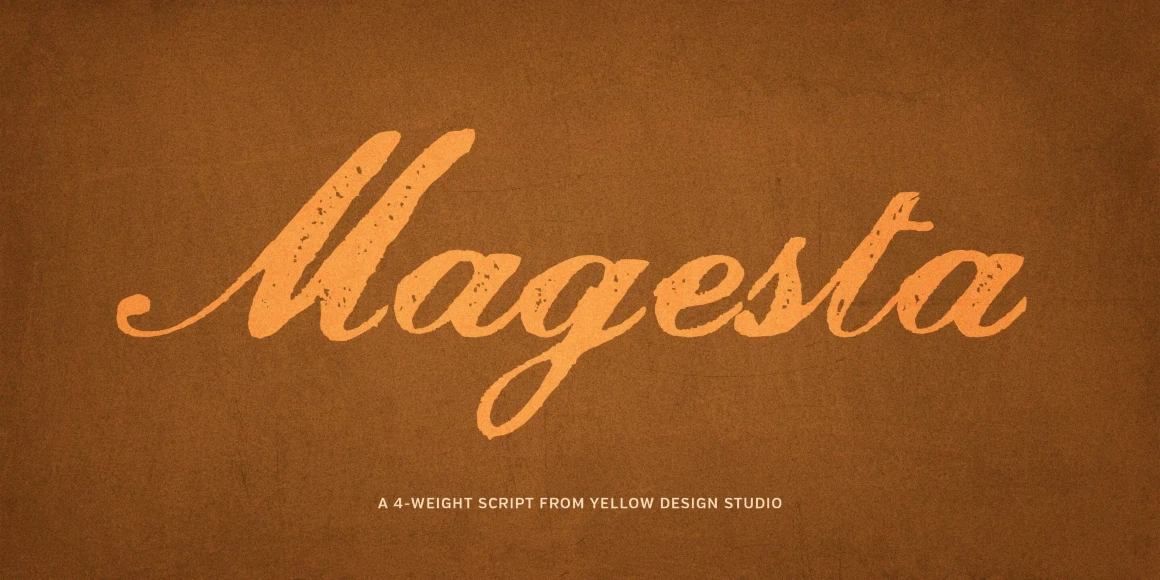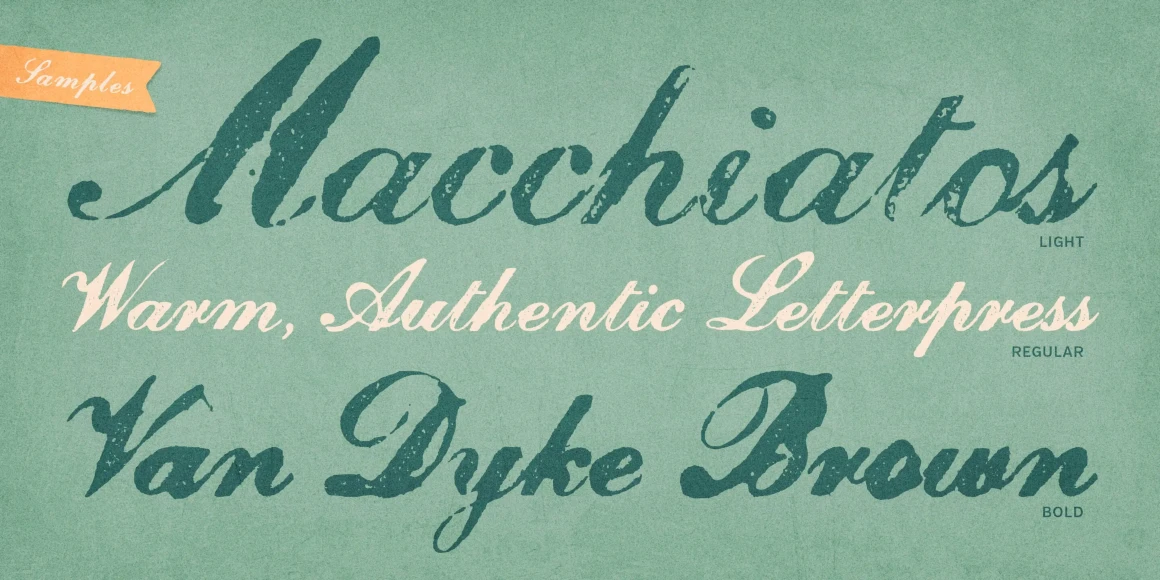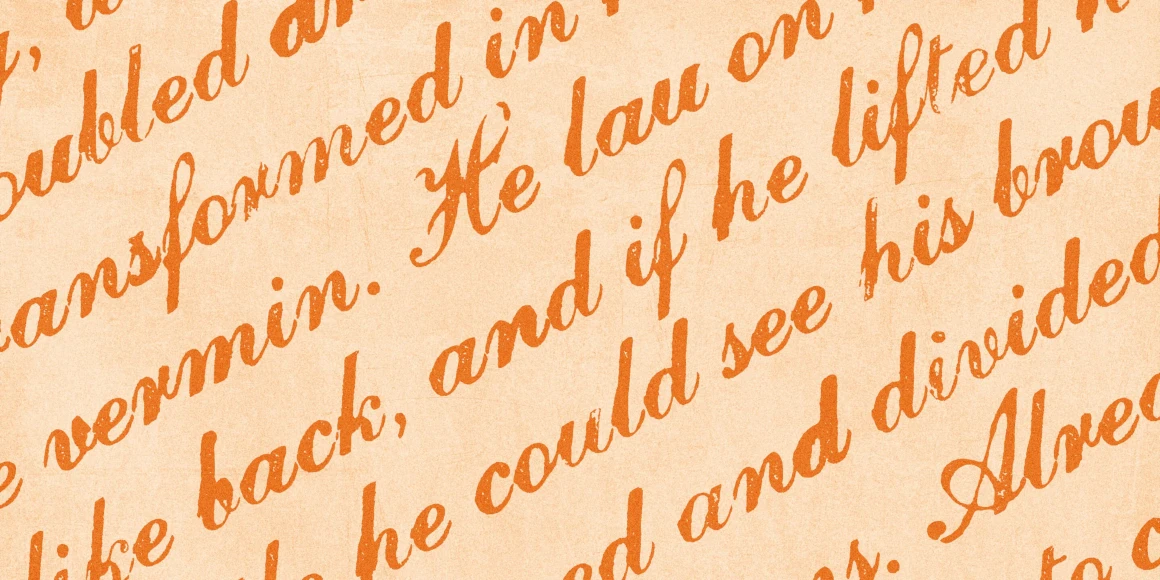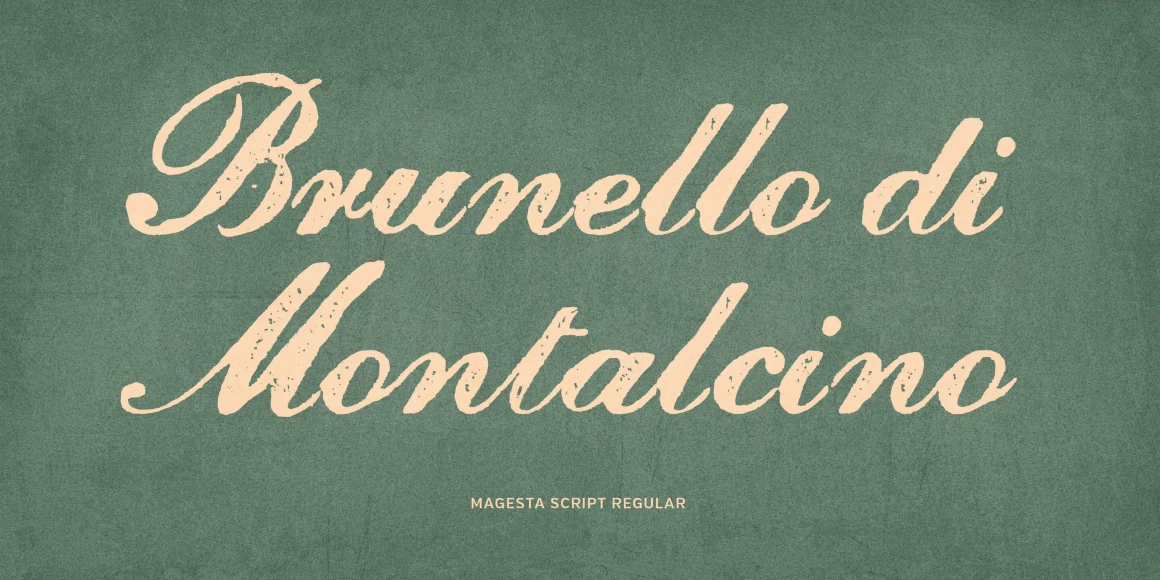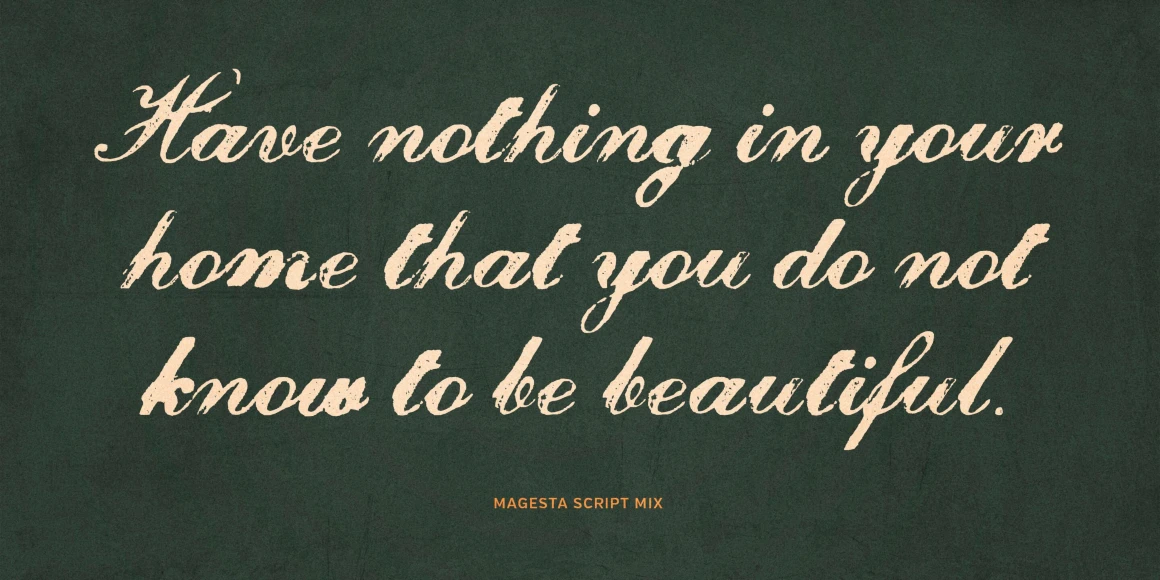
Magesta Script
From Yellow Design Studio
Magesta Script by Yellow Design Studio is a four-weight grungy take on early 20th century script that captures the authentic qualities of letterpress printing. Light, Regular, and Bold weights were created using different levels of ink coverage, while Mix is a combination of all three.
Designed by Ryan Martinson & Rhea Martinson
Magesta Script Light
Magesta Script Regular
Magesta Script Bold
Magesta Script Mix